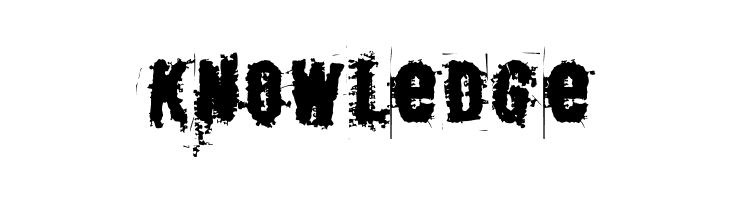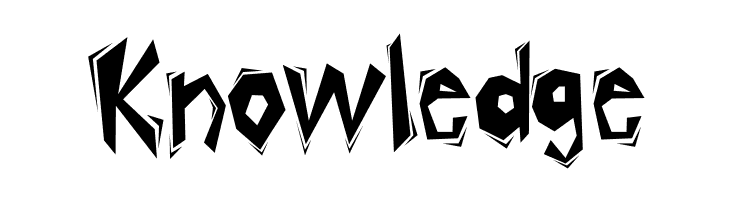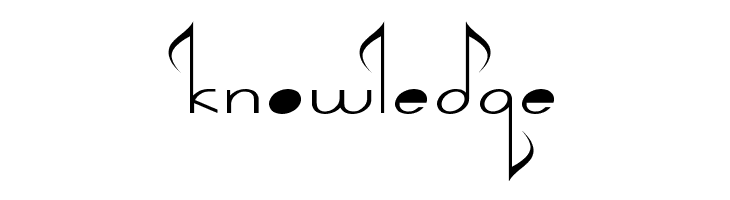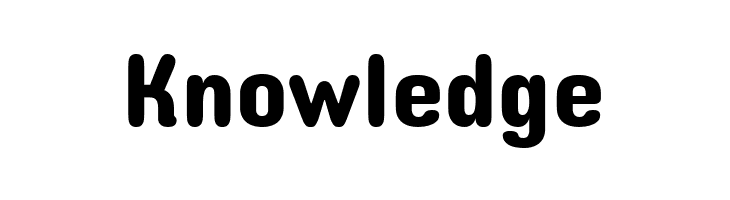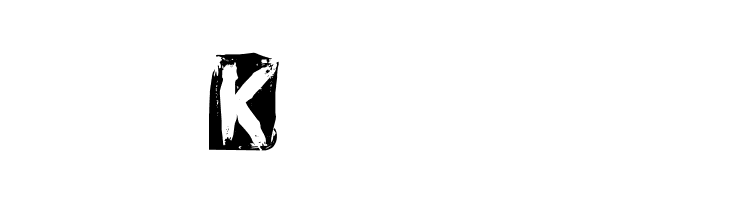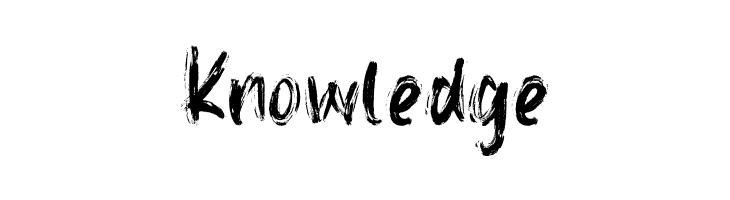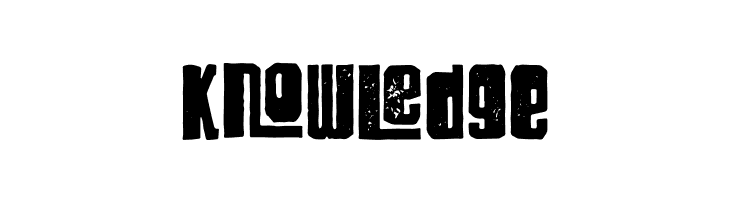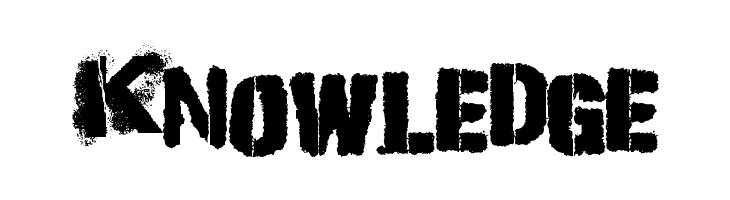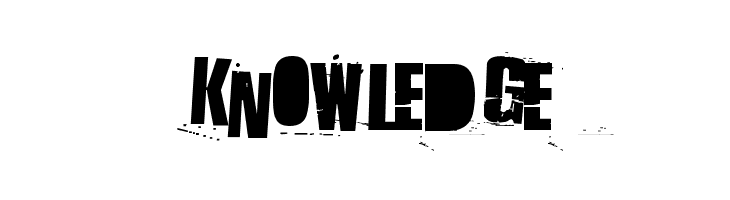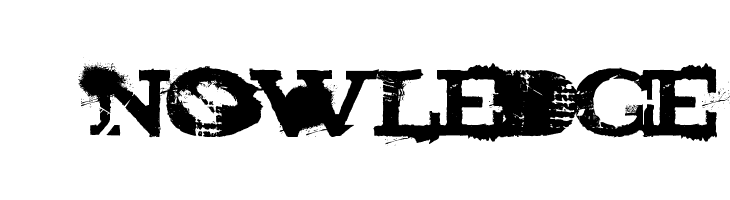
A bold, rounded font with a friendly and modern appearance.
A bold, rounded font with a playful and approachable style.
A bold, rounded font with a modern and playful style.
A rugged, distressed font with a charred, gritty appearance.
A distressed, grungy font with a bold and rugged appearance.
A bold, distressed font with a gritty, punk-inspired aesthetic.
A bold, chaotic display font with a punk rock aesthetic and distressed look.
A distressed, grungy font with a rock-and-roll vibe and rough texture.
A bold, distressed font with star patterns, perfect for impactful designs.
A bold, angular font with a rock-inspired aesthetic and dynamic elements.
A bold, edgy font with sharp, angular strokes and a distressed look.
A decorative font with letters styled as grand pianos and pianist silhouettes.
Decorative font mimicking musical rhythms and notation symbols.
A gritty, distressed font with a punk rock aesthetic, featuring bold, jagged characters.
A bold, edgy font with sharp, angular lines and a modern, rebellious style.
A decorative font with letters integrated into a grand piano design.
A bold, distressed font with a grunge texture, ideal for edgy designs.
A decorative font with characters embedded in piano key graphics.
A bold, distressed font with an edgy, angular design.
A bold, angular font with a rock-inspired, edgy design.
A creative font blending musical notes with modern letterforms.
A bold, distressed font with a punk rock, hand-painted style.
A bold, brushstroke-style font with an edgy, rebellious aesthetic.
A bold, distressed font with a gritty, rock-inspired aesthetic.
A bold, distressed font with a punk rock, grunge aesthetic.